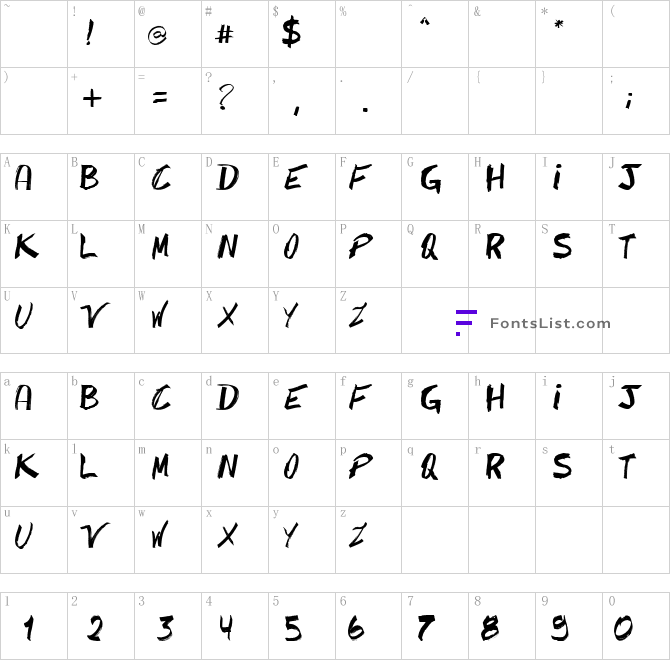
- Font Name:Caipirinha
Caipirinha.ttf is a very beautiful artistic font, Caipirinha.ttf is widely used in the design and printing of various books and pictures,Caipirinha.ttf has a strong visual impact,Caipirinha.ttf is a commonly used font in newspapers, magazines and books, and is used in posters, e-commerce Poster design, store design, logo design, font design and other fields.Caipirinha.